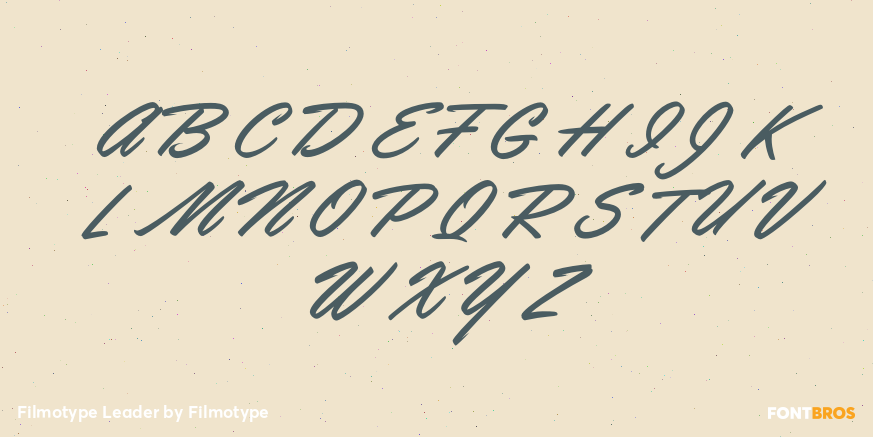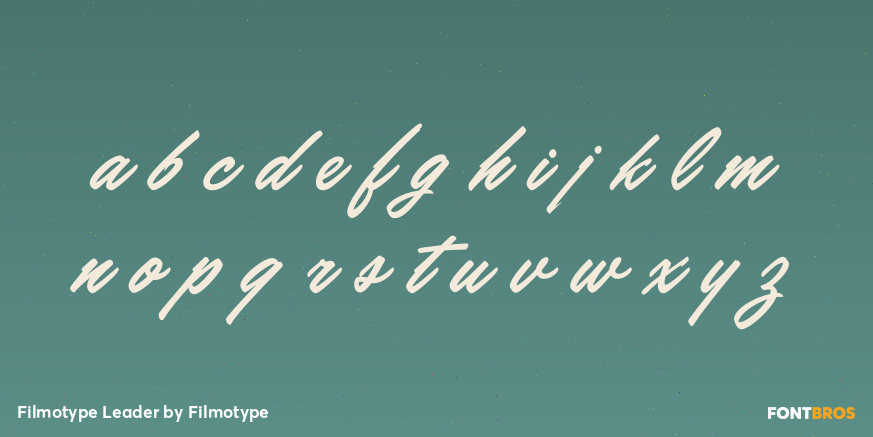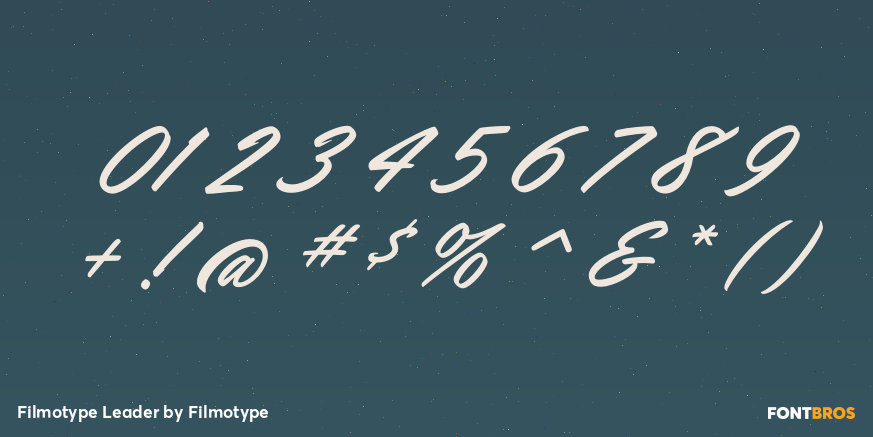
Filmotype Leader
Font Family by Filmotype
Introduced by Filmotype in the early 1950s, Filmotype Leader was inspired by speedy sho-card bold lettering styles prominently featured in automotive advertising and editorial designs of the late 1940s and early 1950s to express speed and urgency.
Remastered and expanded with exacting precision from the original filmstrips, Filmotype Leader includes a full international character compliment, automatic fractionals, ordinals, and a suite of alternates in dynamic OpenType format for a smooth connecting look.